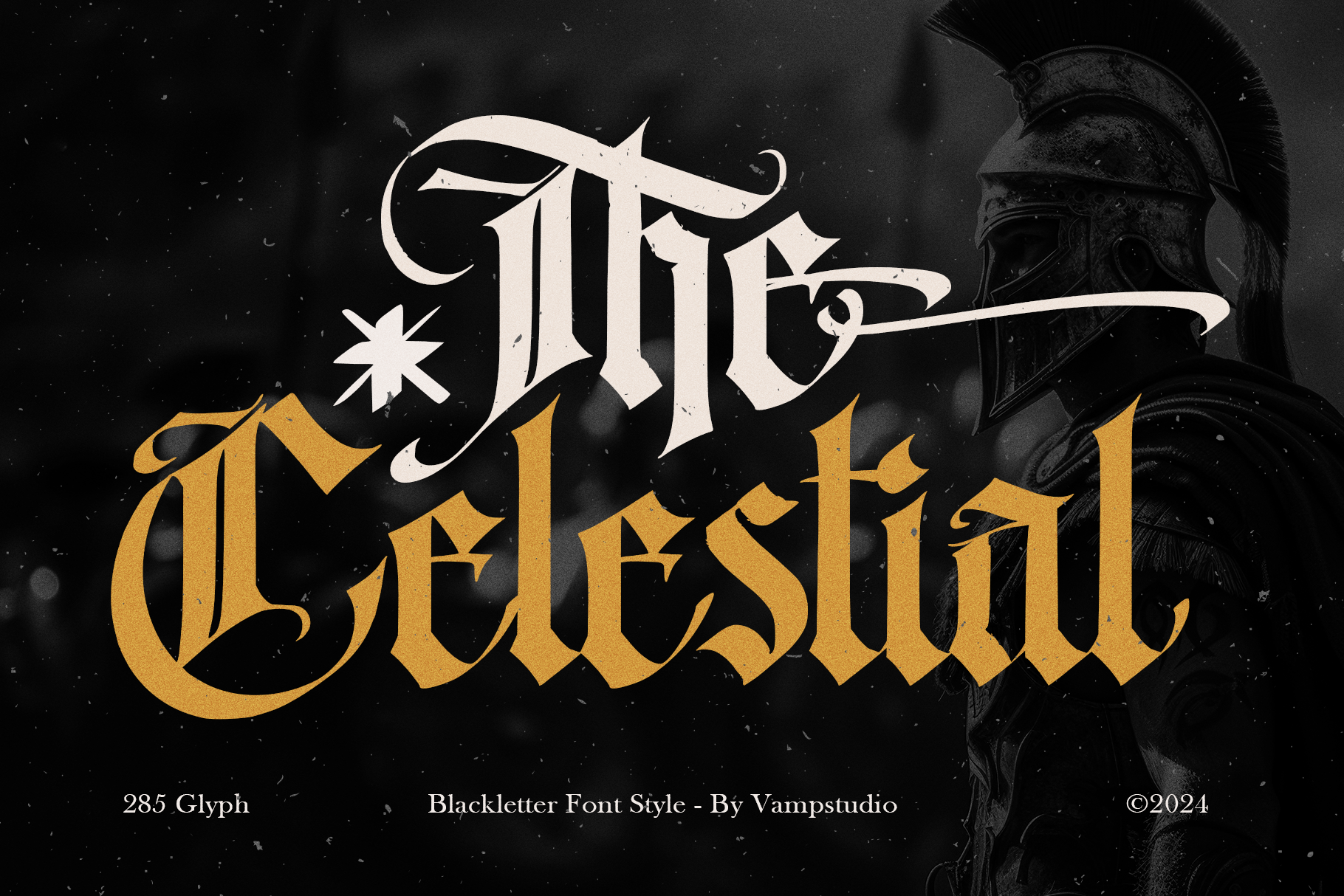
The celestial - Blackletter Font
Introducing The Celestial, a modern blackletter font that blends the mystique of Gothic tradition with sleek, celestial-inspired design. This font radiates elegance and power, perfect for projects that require a timeless yet contemporary edge. With intricate details and sharp, bold strokes, The Celestial adds a touch of grandeur to any design, from branding to editorial work.
Ideal for luxury branding, logos, fashion campaigns, album covers, and high-impact headlines, this font will elevate your designs with its striking presence and refined craftsmanship. Its unique balance of modernity and tradition makes it versatile for both print and digital projects.
- Modern Gothic Aesthetic: A sophisticated blend of classic blackletter and modern design elements.
- Bold & Elegant: Ideal for creating high-impact visuals that demand attention.
- Complete Character Set: Includes uppercase, lowercase, numerals, punctuation, and special characters.
- Versatile Applications: Perfect for luxury branding, editorial designs, posters, and more.
Unleash the celestial beauty and boldness of The Celestial to give your designs a truly otherworldly appeal.